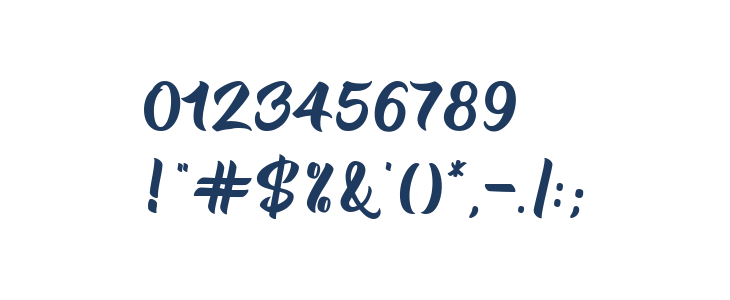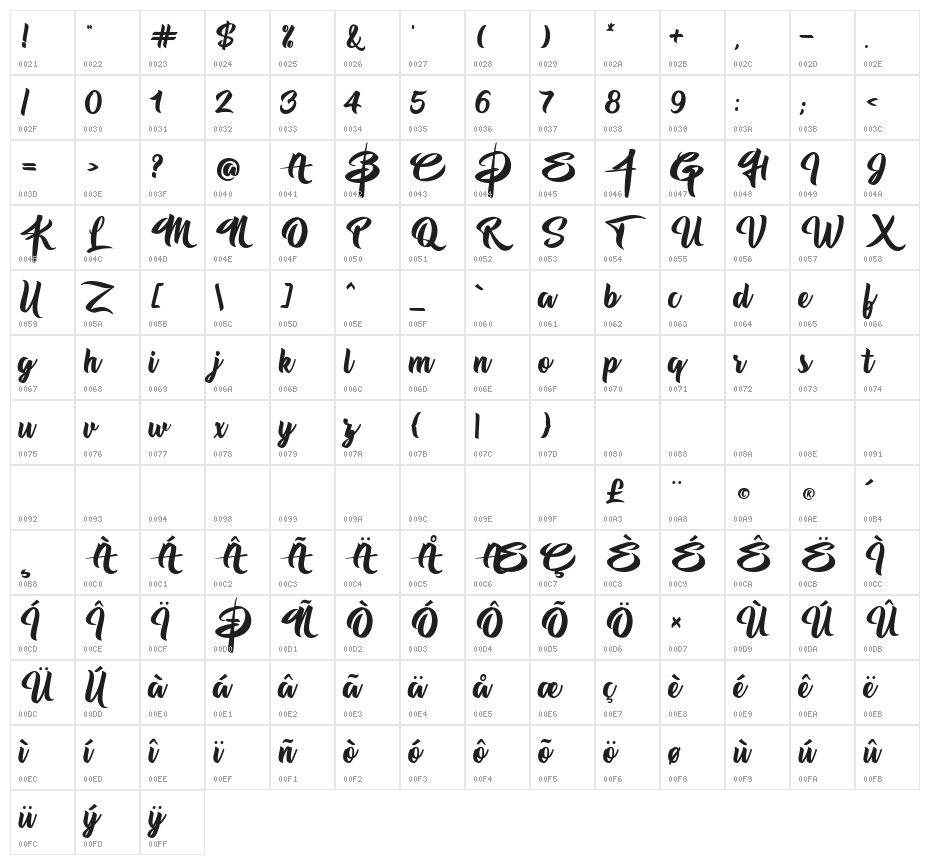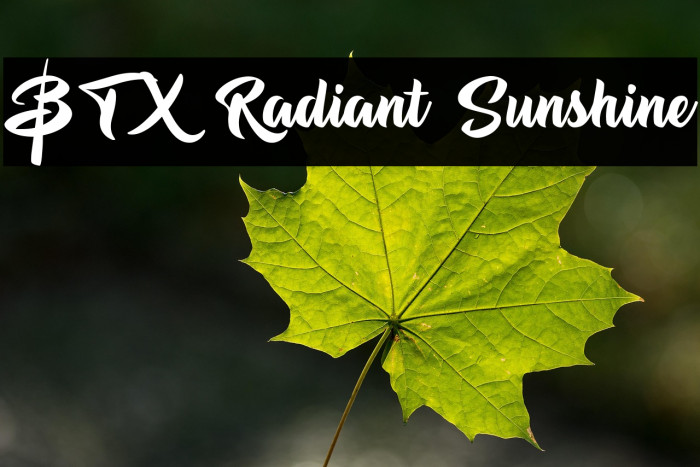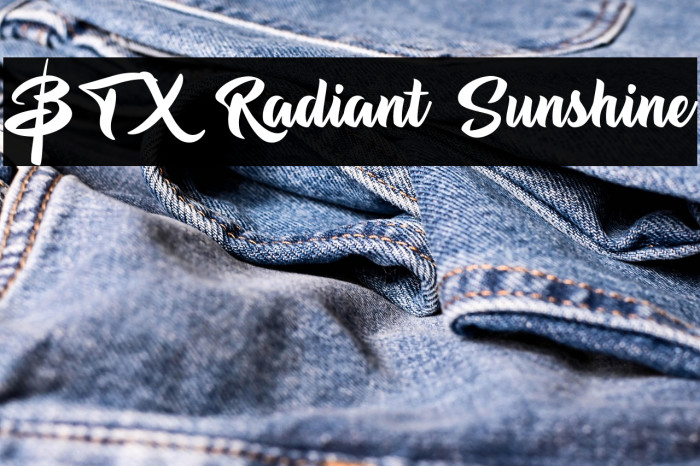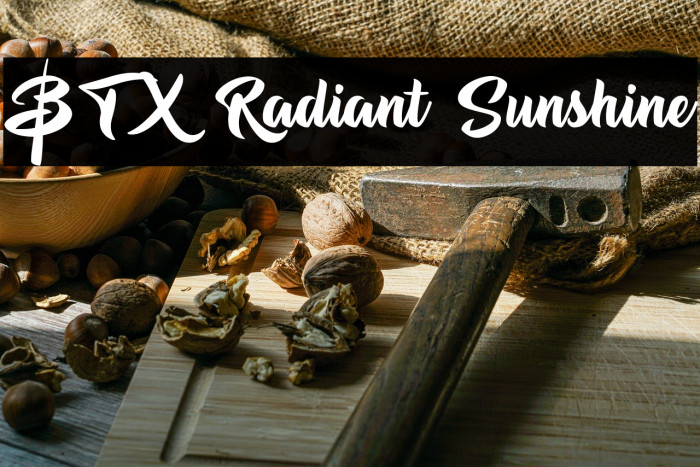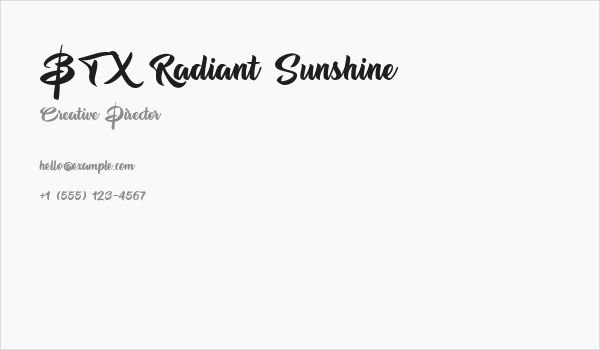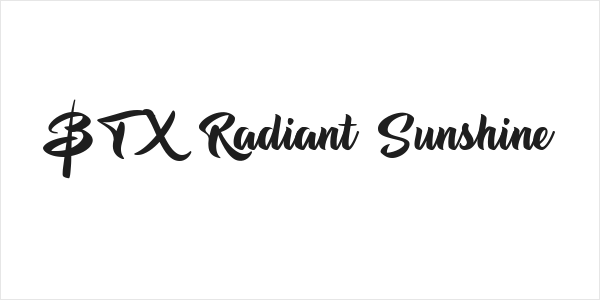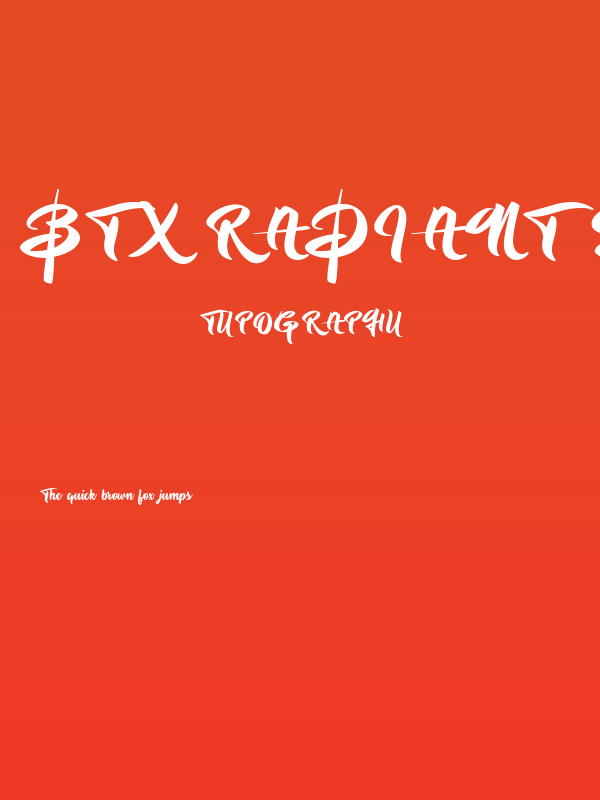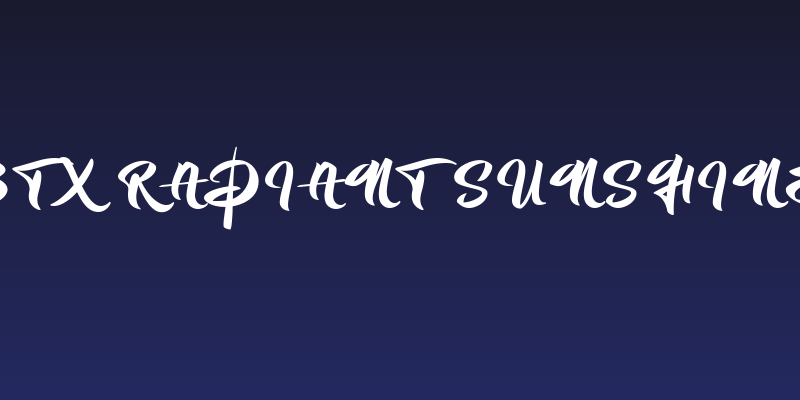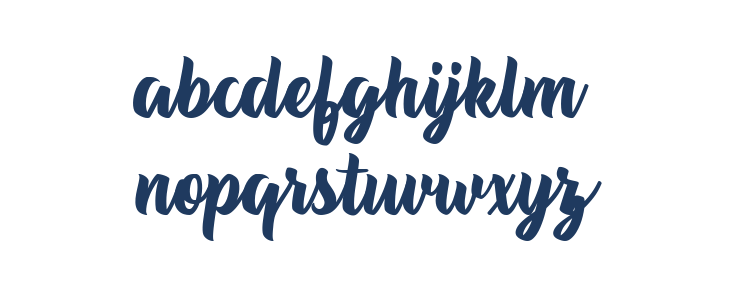
BTX Radiant Sunshine Font
BTX Radiant Sunshine Description
This font features a bold, flowing script style with a modern flair. The uppercase letters are elegantly curved with a slight slant, giving them a dynamic and energetic appearance. The lowercase letters maintain a consistent flow, enhancing readability while retaining a stylish look. Numbers are bold and clear, matching the overall aesthetic. Special characters are designed with the same attention to detail, ensuring they integrate seamlessly with the letters and numbers. The font's bold strokes and smooth curves make it ideal for creating impactful designs.